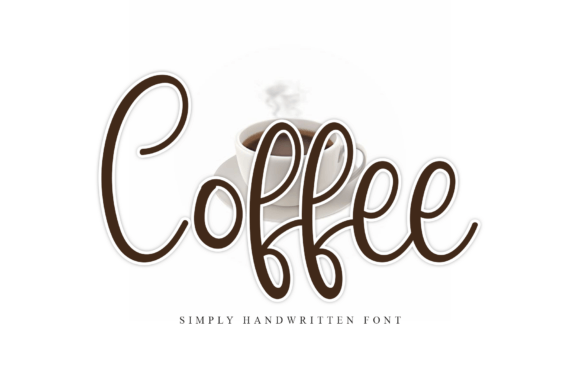
The Perfect Cup: Discovering the Charm of Coffee Font
I’ll never forget the design project that led me to Coffee Font. I was working on a branding campaign for a trendy coffee shop, and I was determined to find the perfect font to capture their modern yet classic vibe. Hours turned into days, and days into weeks, as I scrolled through font after font, but nothing seemed quite right. That was until I stumbled upon Coffee Font – a stylish handwritten font that instantly resonated with the coffee shop’s atmosphere.
A Personal Review: The Good, the Great, and the Quirks
So, what makes Coffee Font so special? Let’s dive into the details.
- ✨ Contemporary atmosphere: Coffee Font has a fresh, modern feel that’s perfect for designs that need a bit of sophistication.
- ✅ Impeccable form: The font’s classic calligraphy inspiration ensures that it always looks polished and refined.
- 💫 Balanced and varied: With a range of glyphs and stylistic alternates, Coffee Font offers plenty of creative possibilities.
While Coffee Font is an excellent choice, there are a few things to keep in mind:
- 🤔 Legibility at small sizes: Like many script fonts, Coffee Font can become a bit tricky to read at very small sizes.
- ⚠️ Limited use in body text: Due to its stylized nature, Coffee Font is best suited for headings, titles, and short paragraphs.
The Story Behind Coffee Font: Designer Inspiration
Coffee Font was inspired by the timeless beauty of classic calligraphy. Its designer aimed to create a font that would bring a touch of elegance and sophistication to modern designs. With its impeccable form and balanced style, Coffee Font is the perfect choice for designers looking to add a bit of luxury to their projects.
| Font Name | Coffee Font |
| Author | Creatype Designer |
Q: Is Coffee Font suitable for body text?
A: While Coffee Font is an excellent choice for headings and titles, it’s not ideal for long body text due to its stylized nature.
Q: Does Coffee Font support OpenType features?
A: Yes, Coffee Font supports OpenType features like ligatures, stylistic alternates, and glyphs.